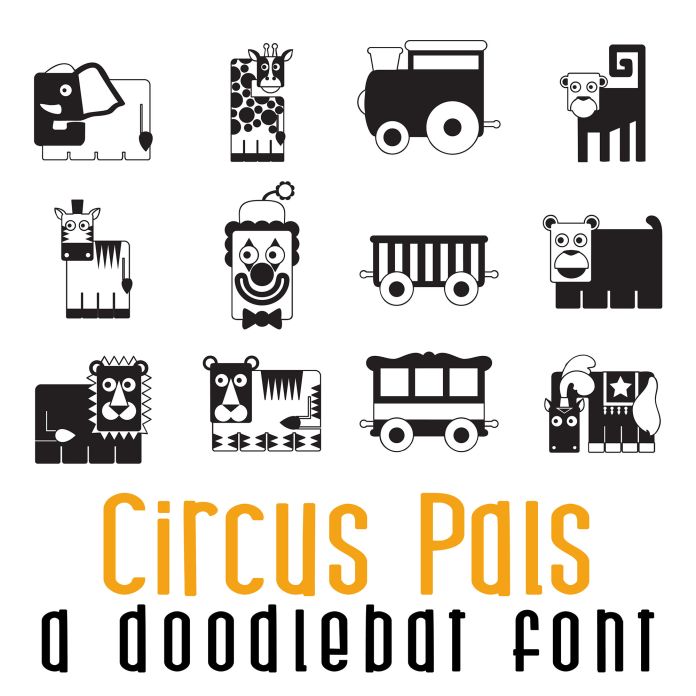
This doodlebat font features 26 rectangle shaped imagery! Perfect for classrooms, teachers, gifts, decor, scrap book pages, planner stickers and more!. Perfect for cards, crafts, gifts, decor, scrapbook pages, planner stickers, classrooms and more!